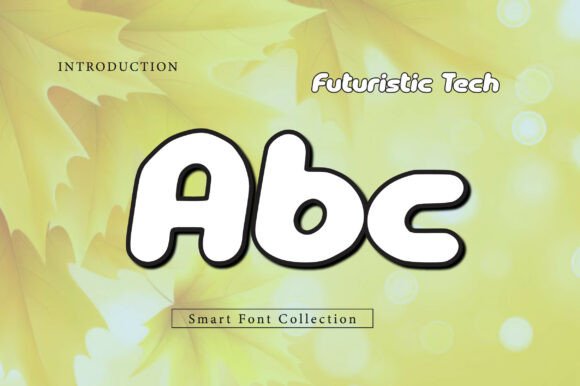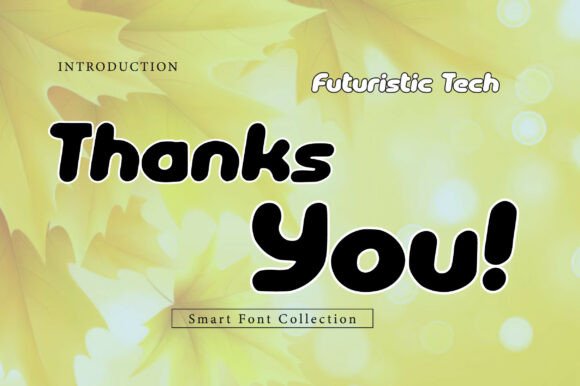
Unlocking the Future of Design with Futuristic Tech Font
Have you ever stared at a sleek new smartphone or a cutting-edge video game interface and felt inspired to create something just as innovative? For designers, those moments of creative spark are the perfect catalyst for bringing new ideas to life. And that’s exactly what the Futuristic Tech Font is designed to help you achieve – a bold, rounded display typeface that embodies the spirit of modern technology and sci-fi aesthetics.
Perfect for tech branding, app interfaces, and gaming titles, the Futuristic Tech Font is a game-changer for designers looking to communicate a modern, futuristic, and tech-savvy vibe. Its smooth curves, heavy strokes, and playful geometry create a friendly yet forward-thinking look that’s sure to captivate audiences and leave a lasting impression. Whether you’re working on a startup logo or social media graphics, this font is a valuable addition to any designer’s toolkit.
Futuristic Tech Font Key Features
- Unique Characteristics: The Futuristic Tech Font features a distinctive blend of futuristic and tech-inspired elements, including bold lines, geometric shapes, and neon accents.
- Style Options: The font includes 5 different styles: Regular, Bold, Italic, Bold Italic, and Outline, providing designers with a range of creative possibilities.
Futuristic Tech Font Review
- Unique blend of futuristic and tech elements makes it stand out from the crowd.
- High contrast and bold lines create a visually appealing effect.
- Supports a wide range of languages, making it a great choice for multilingual projects.
- Available in a variety of weights and styles to suit different design needs.
- May be too flashy or over-the-top for some projects or brands.
- Some characters or symbols may appear slightly awkward or disproportionate.
- Lack of fine-tuning options for adjusting the font’s futuristic elements.
Overall, I’d say the Futuristic Tech Font is a great choice for projects that need a bold and futuristic vibe. While it may not be perfect, its unique style and wide language support make it a solid option for designers looking to add some excitement to their designs.
The Futuristic Tech Font is perfect for:
1. Sci-fi and technology-related designs.
2. Futuristic and minimalist logos.
3. Creating a sense of innovation and progress.
For best results, use the font in bold and large sizes to make a statement.
Alternatives to Futuristic Tech Font
1. Space Mono
Space Mono is a monospaced sans-serif font designed by Colophon Foundry. It is ideal for coding, technical documentation, and futuristic interfaces. Space Mono has a clean and minimalist aesthetic, making it a suitable alternative to Futuristic Tech Font. It is more versatile and can be used in a wide range of applications, from print to digital media.
Comparison to Futuristic Tech Font: Space Mono is more straightforward and lacks the bold, aggressive feel of Futuristic Tech Font. It is better suited for applications where a clean and readable font is required.
2. Inter UI
Inter UI is a sans-serif font designed by Rasmus Andersson. It is a modern and minimalist font that is well-suited for user interfaces, digital products, and technical documentation. Inter UI has a clean and elegant aesthetic, making it a suitable alternative to Futuristic Tech Font. It is more versatile and can be used in a wide range of applications.
Comparison to Futuristic Tech Font: Inter UI is more elegant and refined than Futuristic Tech Font. It is better suited for applications where a clean and modern font is required.